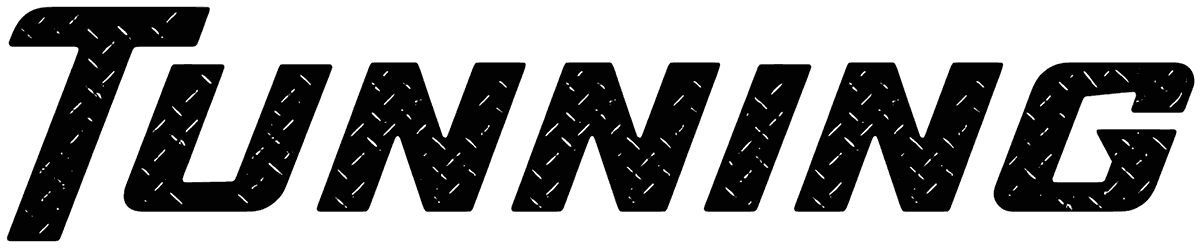
Tunning Font
We strongly recommend that you utilize a truck font such as Tunning in your graphic content, such as editorial projects, banners, logos, business cards, and flyers, to notice how it makes them stand out alongside their counterparts. Aside from the lack of lowercase letters, it must be mentioned that this typeface leads to a sense of modernity, futurism, comfort, and dynamism.
Designed by: RodrigoTypo